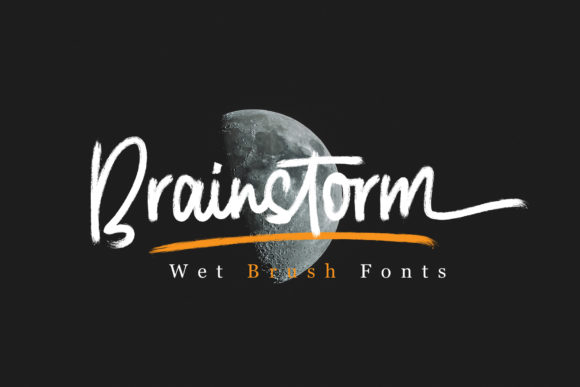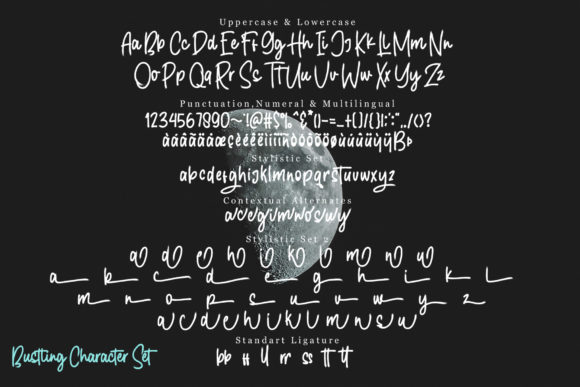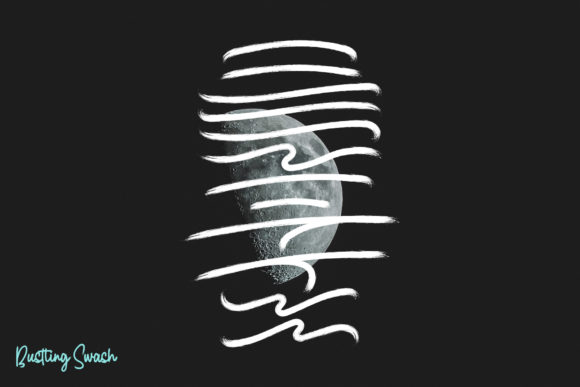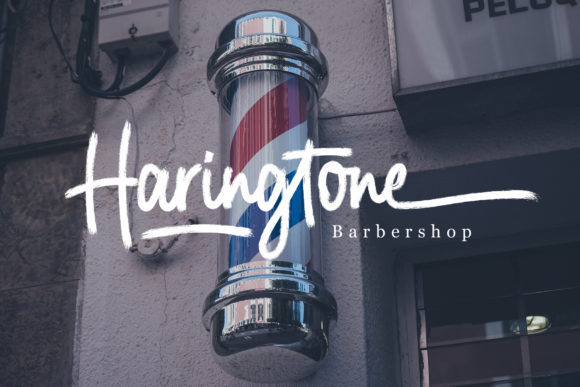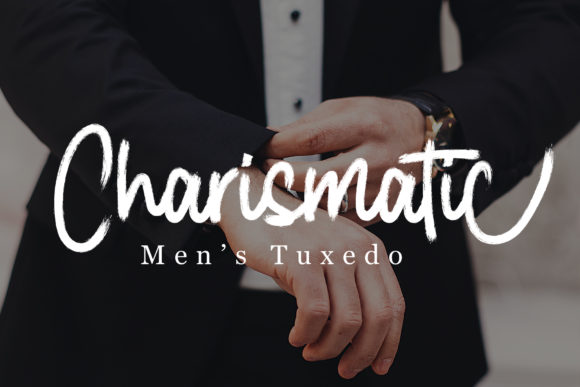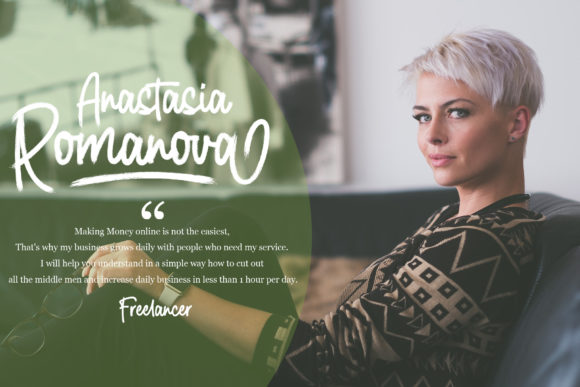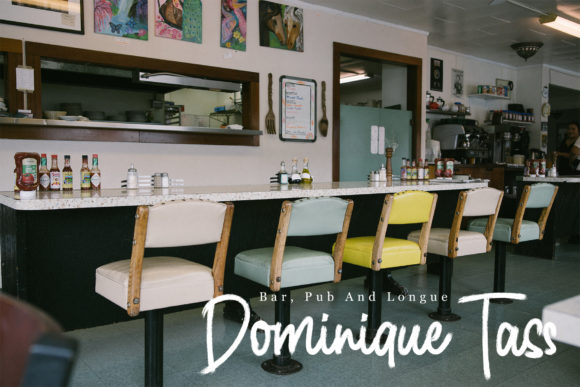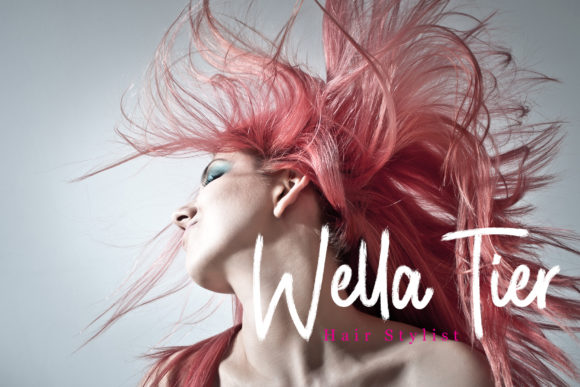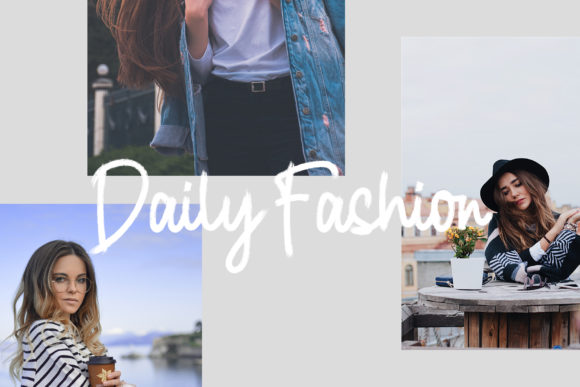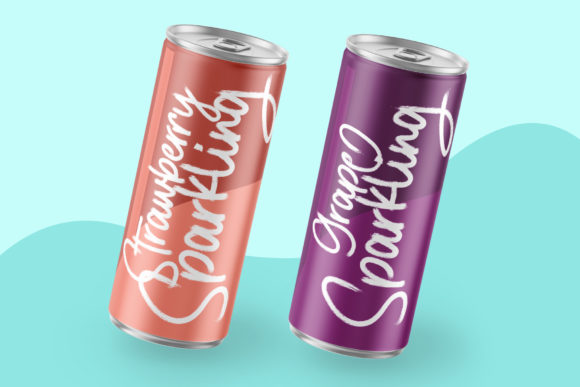
Brainstorm Font
About Brainstorm Font
With its charismatic lettering and distinct brush strokes, Brainstorm will take any creative idea to the next level.